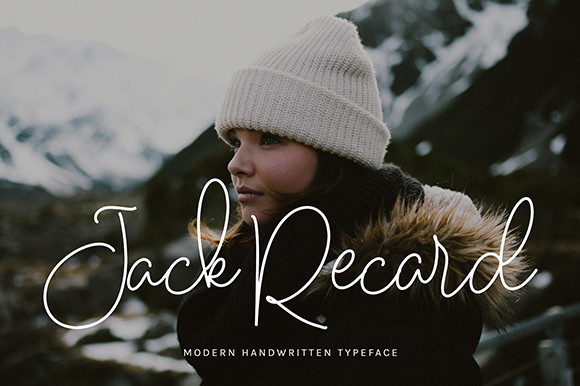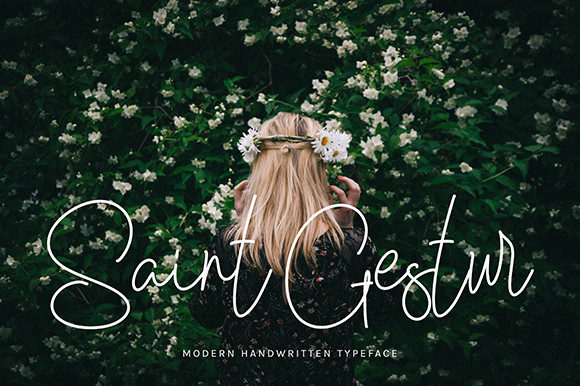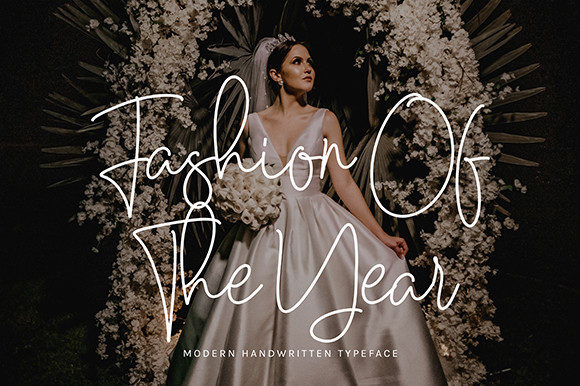
Introduction to Santorini Eighty Font
As a designer, there’s nothing quite like the thrill of staring at a blank canvas, envisioning the perfect typography that will bring your creative project to life. The right font can elevate your design from ordinary to extraordinary, and that’s exactly what the Santorini Eighty Font is designed to do.
With its elegant, flowing script style, the Santorini Eighty Font is a high-quality design resource that’s perfect for projects that need a touch of romance and sophistication. Whether you’re working on a wedding invitation, a travel brochure, or a personal blog, this font is sure to add a unique and stylish touch. And the best part? It’s available for free download, making it an accessible and valuable resource for designers of all levels.
One of the standout features of the Santorini Eighty Font is its transparent background, which makes it easy to combine with other design elements and create a seamless, cohesive look. With its PUA encoding, you’ll have access to all the glyphs and swashes you need to create beautiful, custom typography. Whether you’re a seasoned designer or just starting out, the Santorini Eighty Font is a must-have resource for any creative project.
Key Features of Santorini Eighty Font
- High-quality design resource ideal for creative projects requiring a touch of Greek charm.
- Unique transparent background allows for seamless integration with various design elements.
- Eighty glyphs, including uppercase and lowercase letters, numbers, and punctuation marks.
- Perfect for designers looking for a distinctive and elegant font to elevate their designs.
Honest Review: Santorini Eighty Font
As a designer, I’m always on the lookout for high-quality fonts that can elevate my creative projects. I recently stumbled upon the Santorini Eighty Font, and I have to say, it’s a gem. This font is a design resource that’s hard to resist, especially with its free download option.
One of the standout features of the Santorini Eighty Font is its transparent background, which makes it incredibly versatile. I can use it for a wide range of creative projects, from logos to brochures, without worrying about compatibility issues.
- ✨ High-quality design: The Santorini Eighty Font is beautifully crafted, with intricate details and a unique aesthetic that sets it apart from other fonts.
- ✨ Versatile: The font’s transparent background makes it perfect for use in a variety of creative projects, from print to digital media.
However, I do have a few limitations to note:
- ⚠️ Limited language support: While the font is perfect for English projects, it may not be suitable for projects that require support for other languages.
- ⚠️ Limited customizability: While the font is beautifully designed, it may not offer the level of customizability that some designers require.
Overall, I’m thoroughly impressed with the Santorini Eighty Font. Its high-quality design, versatility, and free download option make it a must-have for any designer. While it may have some limitations, it’s definitely worth considering for your next creative project.
Tips for Getting the Most Out of Santorini Eighty Font
To get the most out of the Santorini Eighty Font, use it in combination with a transparent background to create a unique design. Experiment with different font sizes, colors, and styles to add depth and visual interest to your creative project.
Common Use Cases for Santorini Eighty Font
The Santorini Eighty Font is ideal for use in branding materials, social media graphics, and digital marketing campaigns. Its elegant and sophisticated design makes it perfect for creating high-end and premium content.